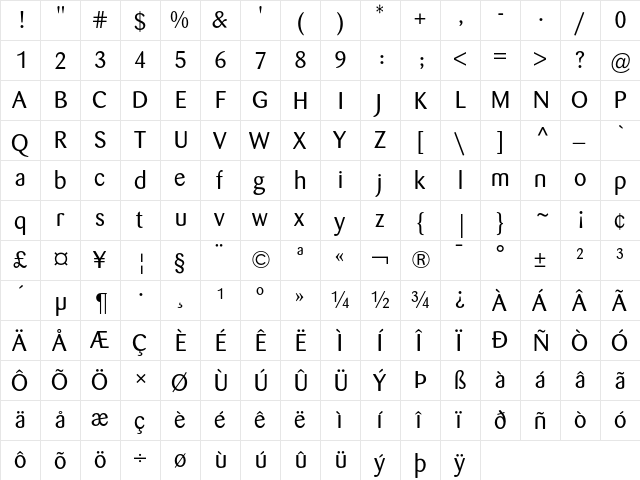
Barmeno Regular
Design Context for Barmeno Typeface
Barmeno takes a measured approach to typography — its balanced proportions and neutral character make it a reliable workhorse for both digital and print work.
Pro Tip: Use Barmeno in both headline and body roles to test its range before committing to a single application.